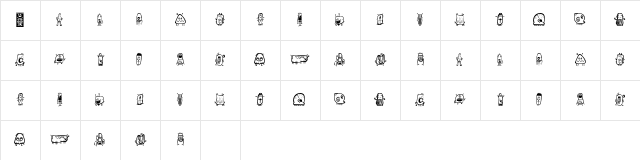
aliendco Regular
Design Context for aliendco
aliendco is a composed and adaptable typeface that performs quietly and consistently across a wide range of design contexts.